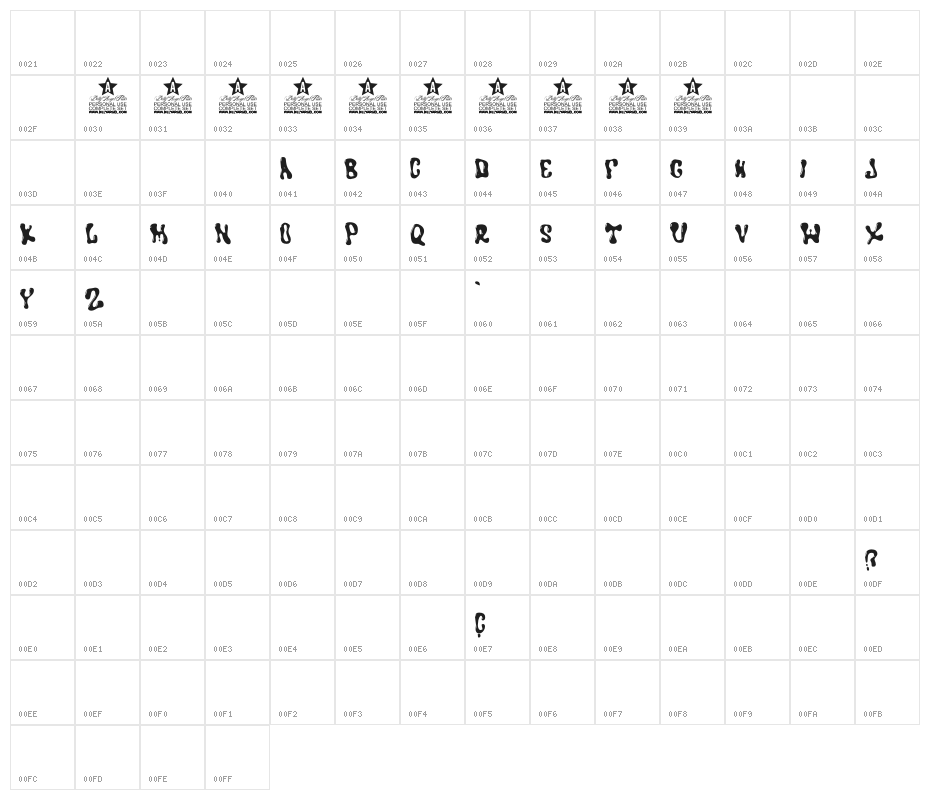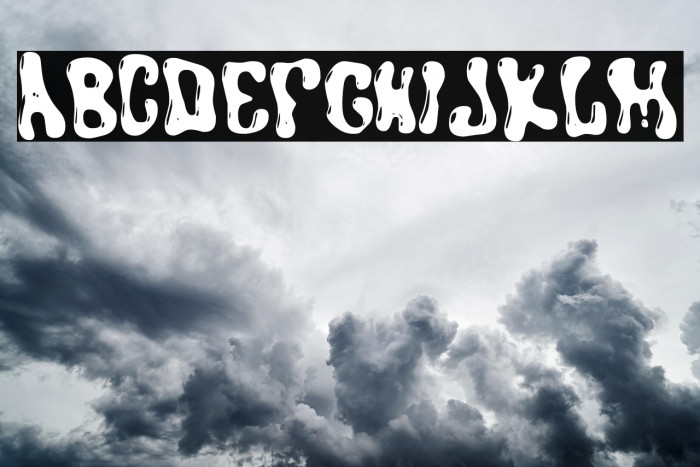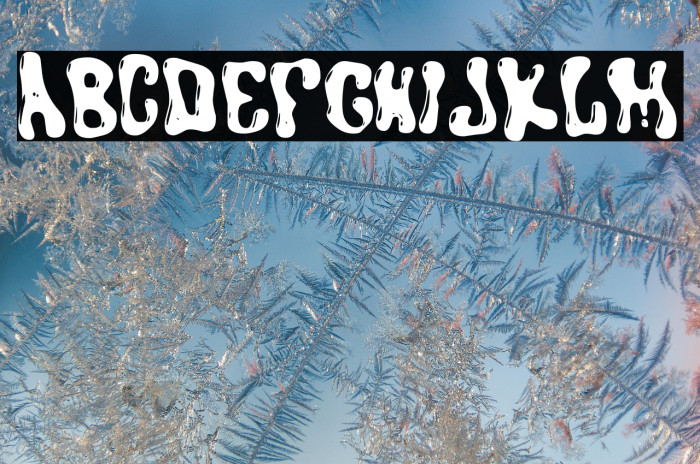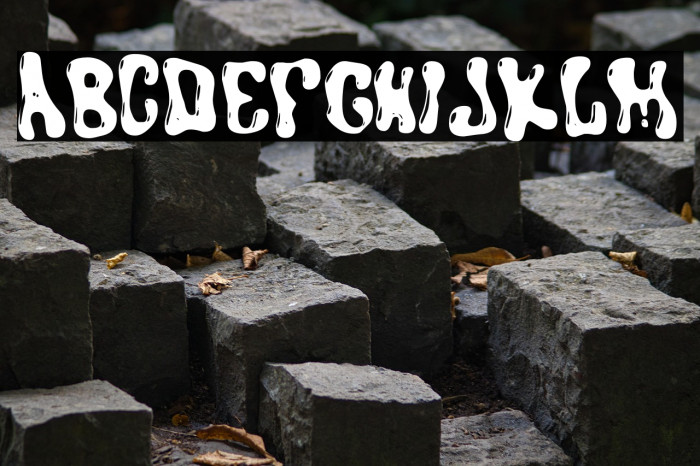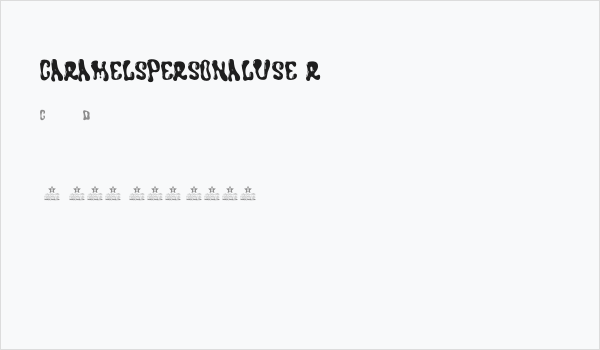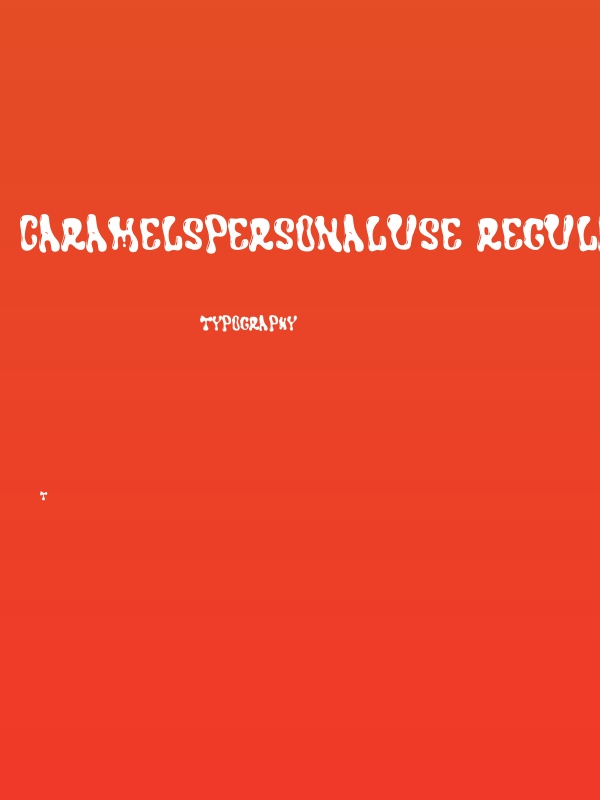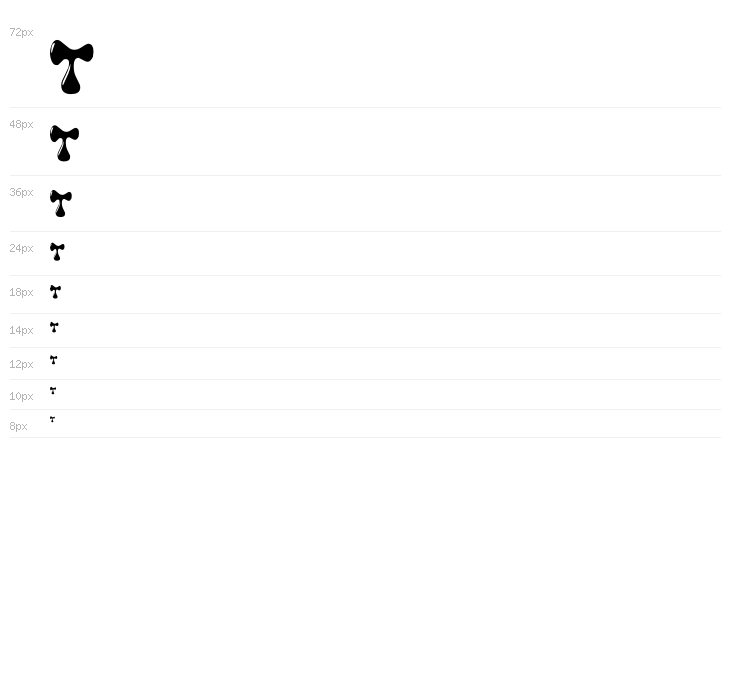
CARAMELSPERSONALUSE-Regular Font
This font features a playful and bold design with a unique, fluid appearance. The characters are rounded and have an organic, almost liquid-like quality, making them stand out with a distinctive personality. The style is reminiscent of melted caramel or dripping paint, giving it a whimsical and artistic flair. Each letter is crafted with a sense of movement and dynamism, making it ideal for creative and eye-catching designs. The font's boldness ensures it captures attention, while its playful curves add a touch of fun and creativity.
| Proposed Projects | Ideal for children's book covers, playful branding, creative posters, and artistic projects. |